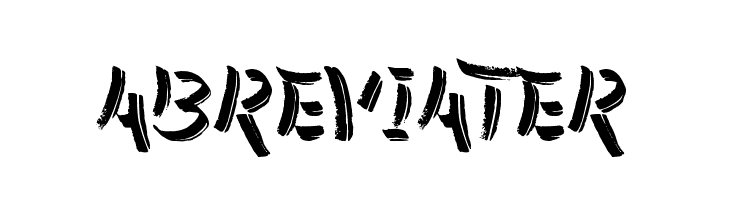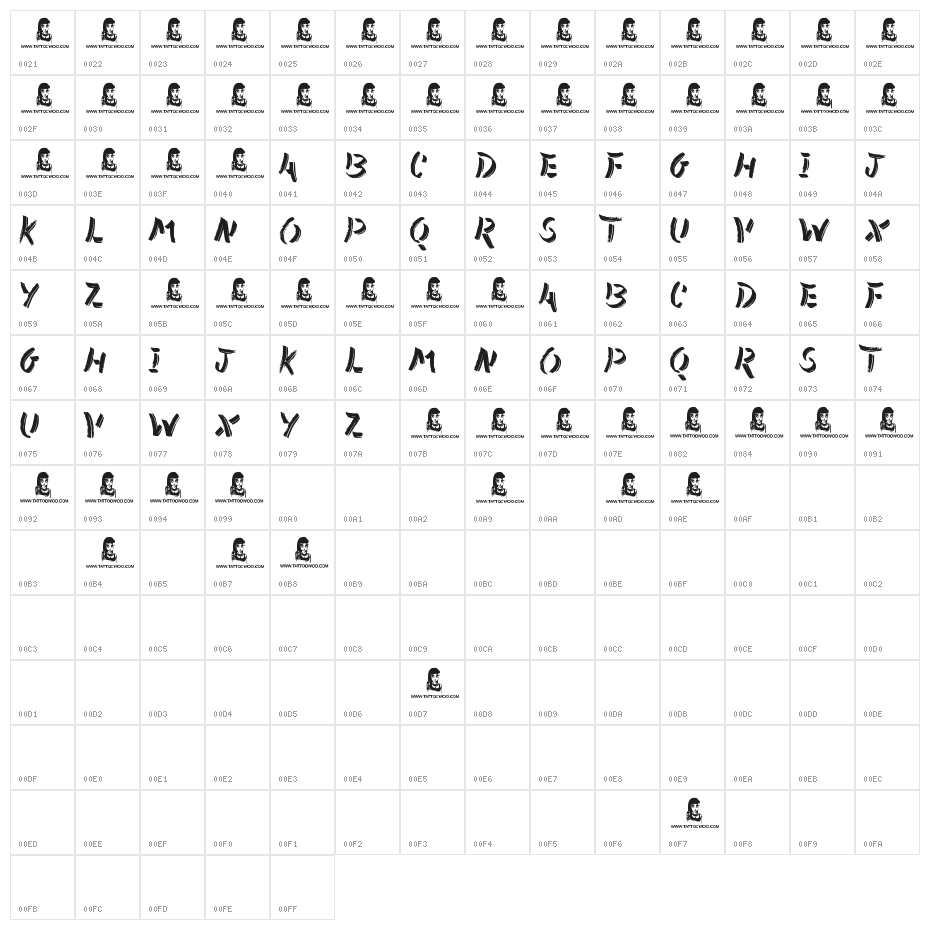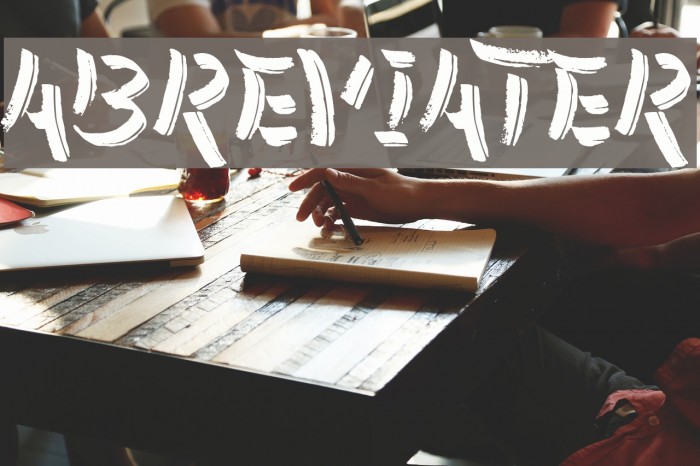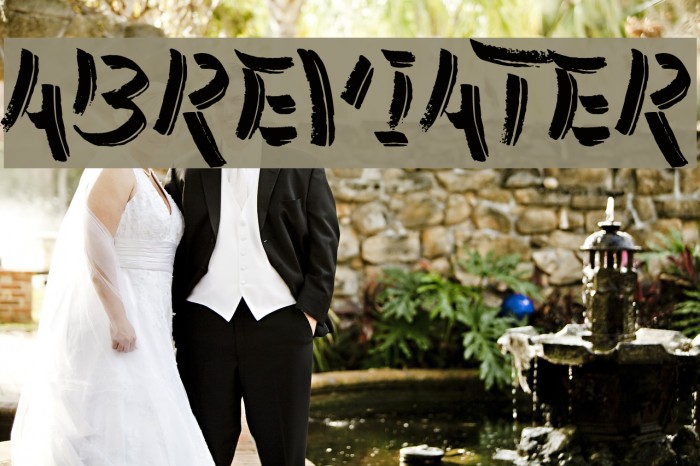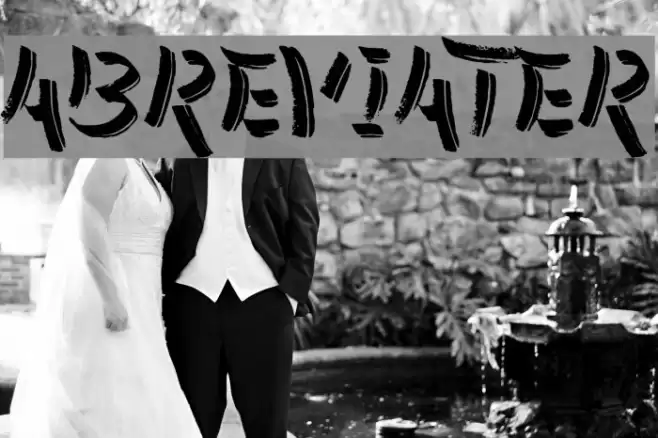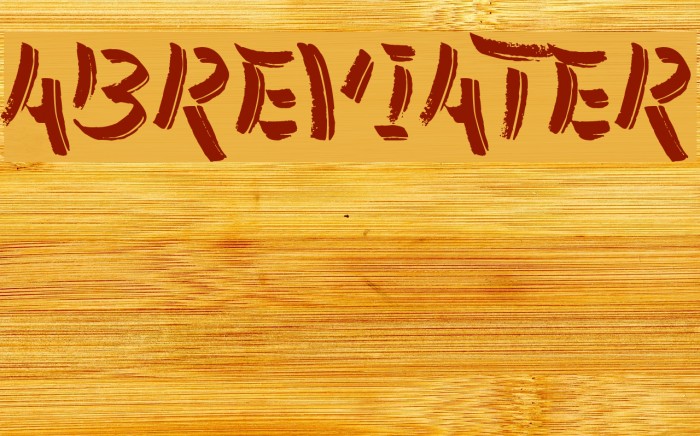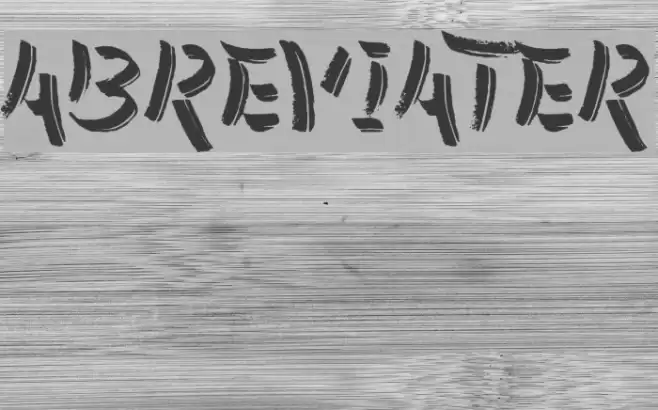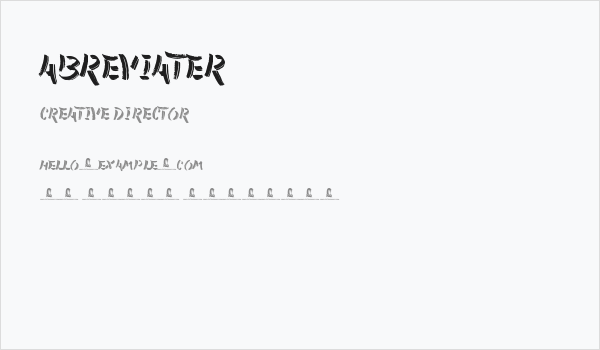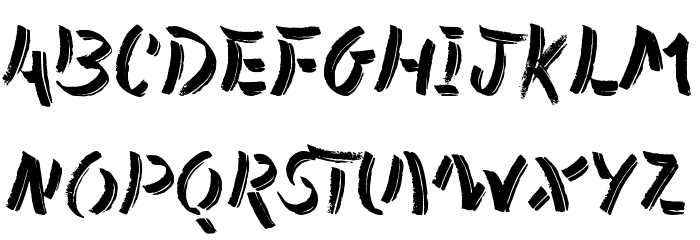
Abreviater Font
Abreviater Description
This font features a bold, brushstroke style that conveys a sense of energy and dynamism. The letters are crafted with a rough, textured appearance, reminiscent of hand-painted signage or artistic calligraphy. Each character has a unique flair, with varying thicknesses and angles that add to the overall expressive quality. The uppercase and lowercase letters maintain a consistent style, while the numbers and special characters integrate seamlessly, enhancing the font's versatility. This font is ideal for projects that require a bold, artistic touch, such as posters, branding, or creative designs.
| Overall Style | Artistic, Dynamic |
| Use Case | Headlines, Logos, Creative Designs |
| Proposed Projects | Ideal for posters, branding, artistic designs, and creative projects. |